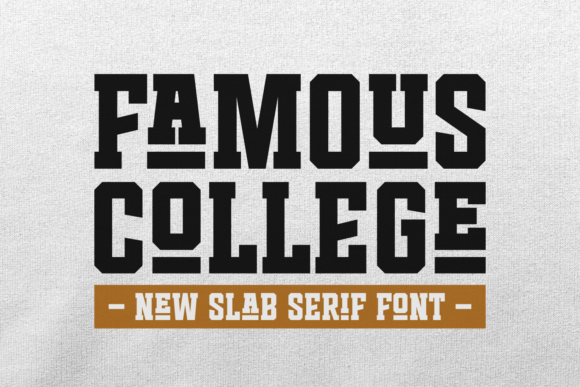
Famous College Font: Elevate Your Designs with Timeless Elegance
The world of typography is vast and diverse, with numerous fonts catering to various design needs. Among these, the Famous College font stands out for its classic charm and versatility. This article delves into the characteristics, uses, and benefits of the Famous College font, particularly in contexts such as designing labels for perfumes, cosmetics, magazine covers, posters, manifests, flyers, social posts, and fashion.
What is Famous College Font?
Famous College font is a typeface that exudes elegance and sophistication. Its design is reminiscent of traditional serif fonts, with subtle flair and refined lines. This font is perfect for projects that require a touch of classic luxury and high-end appeal.
Key Features of Famous College Font
- Classic Serif Design: Famous College font boasts a traditional serif design, making it ideal for projects that demand a sense of heritage and timelessness.
- Elegant and Refined: The font’s lines and curves are meticulously crafted to provide an air of sophistication and luxury.
- Versatile: It adapts wonderfully across various design contexts, from print to digital media.
- High Readability: The clear and distinct letterforms ensure excellent readability, even at smaller sizes.
Applications of Famous College Font
Famous College font is incredibly versatile, making it suitable for a wide range of design applications. Here are some contexts where it truly shines:
Perfume and Cosmetics Labels
When it comes to branding perfumes and cosmetics, the font used on labels can significantly influence consumer perception. Famous College font, with its elegant and refined appearance, can add a touch of luxury to your product labels. This can help in positioning your brand as high-end and premium, potentially attracting a more discerning clientele.
Magazine Covers
Magazine covers are often the first point of contact between the publication and potential readers. Using Famous College font on a magazine cover can instantly convey a sense of sophistication and quality, making the publication more appealing to readers.
Posters and Flyers
For posters and flyers, the goal is often to grab attention while conveying information clearly. Famous College font can be used to create visually striking headlines and titles that draw viewers in, while its readability ensures that the message is communicated effectively.
Manifests and Official Documents
In contexts where a formal tone is required, such as manifests and official documents, Famous College font can add a layer of professionalism and authority. Its classic design helps in creating a document that looks respectable and serious.
Social Media Posts
In the digital realm, standing out on social media can be challenging. Using Famous College font in social posts can help in creating visually appealing content that captures attention. Whether it’s a promotional offer, an announcement, or a simple update, this font can elevate the aesthetic of your posts.
Fashion and Apparel
The fashion industry often relies on typography to convey brand identity and style. Famous College font can be a great addition to fashion designs, including logos, tags, and marketing materials, due to its elegant and high-end feel.
Why Choose Famous College Font?
There are several reasons why Famous College font should be a part of your typographic arsenal:
- Timeless Appeal: Unlike trendy fonts that may quickly become outdated, Famous College font has a timeless quality that ensures your designs remain relevant.
- Versatility: Its adaptability across various design contexts makes it a valuable asset for any designer.
- Elegance and Sophistication: It adds a touch of luxury and refinement to any project, enhancing its visual appeal.
- Readability: The clear and distinct letterforms make it easy to read, even at smaller sizes.
How to Use Famous College Font Effectively
To make the most of Famous College font, consider the following tips:
- Pair with Complementary Fonts: While Famous College font is elegant on its own, pairing it with simpler fonts can create a balanced and harmonious design.
- Adjust Size and Weight: Experiment with different sizes and weights to add hierarchy and emphasis to your text.
- Use in Headlines and Titles: Its classic design makes it perfect for headlines and titles, where you want to make a strong visual impact.
- Consider Line Spacing: Ensure adequate line spacing to improve readability, especially in longer texts.
Famous College font is a versatile and elegant typeface that can elevate a wide range of design projects. Its classic serif design, combined with its refined lines and high readability, makes it an excellent choice for various applications, from perfume labels and magazine covers to social posts and fashion designs. By incorporating Famous College font into your creations, you’ll likely find it becoming one of your favorite fonts due to its timeless appeal and adaptability. So, experiment with it in your designs and discover how it can add a touch of sophistication and luxury to your work.